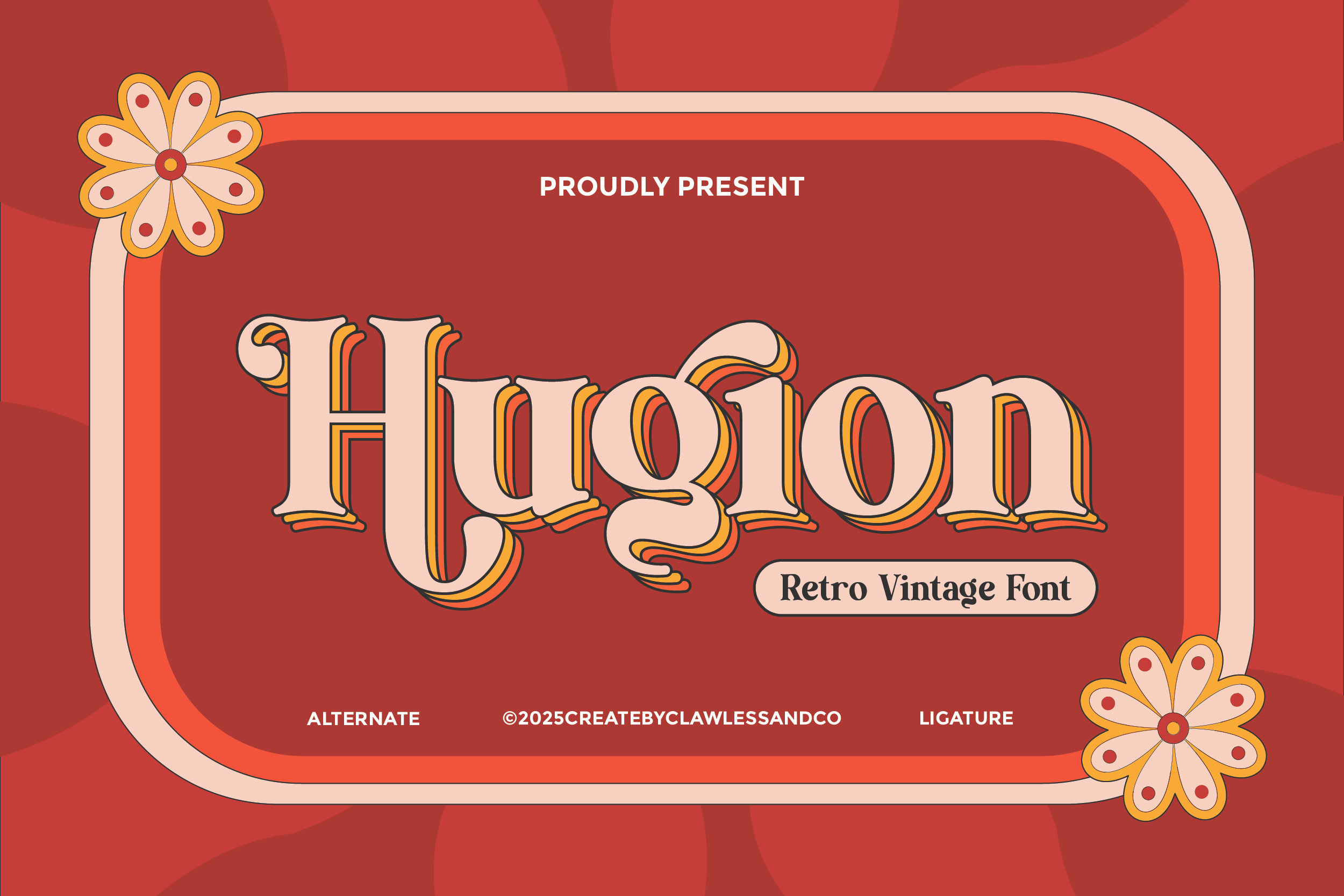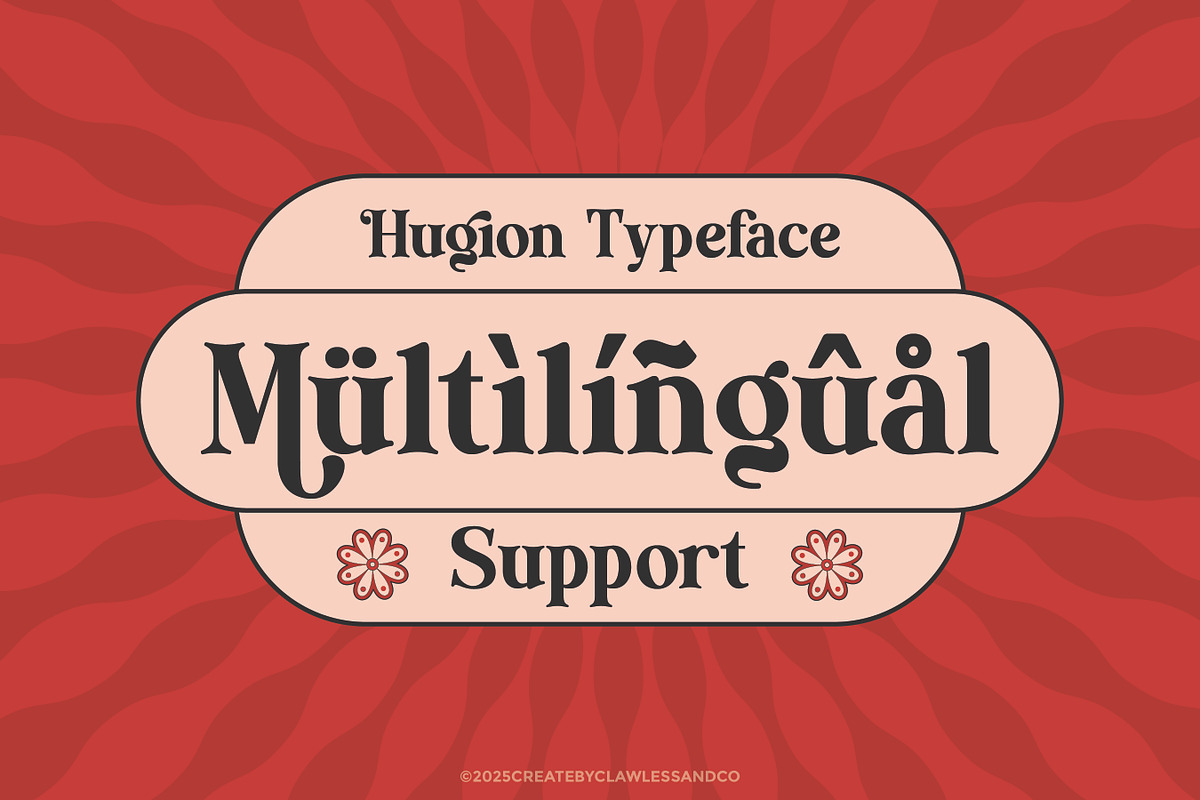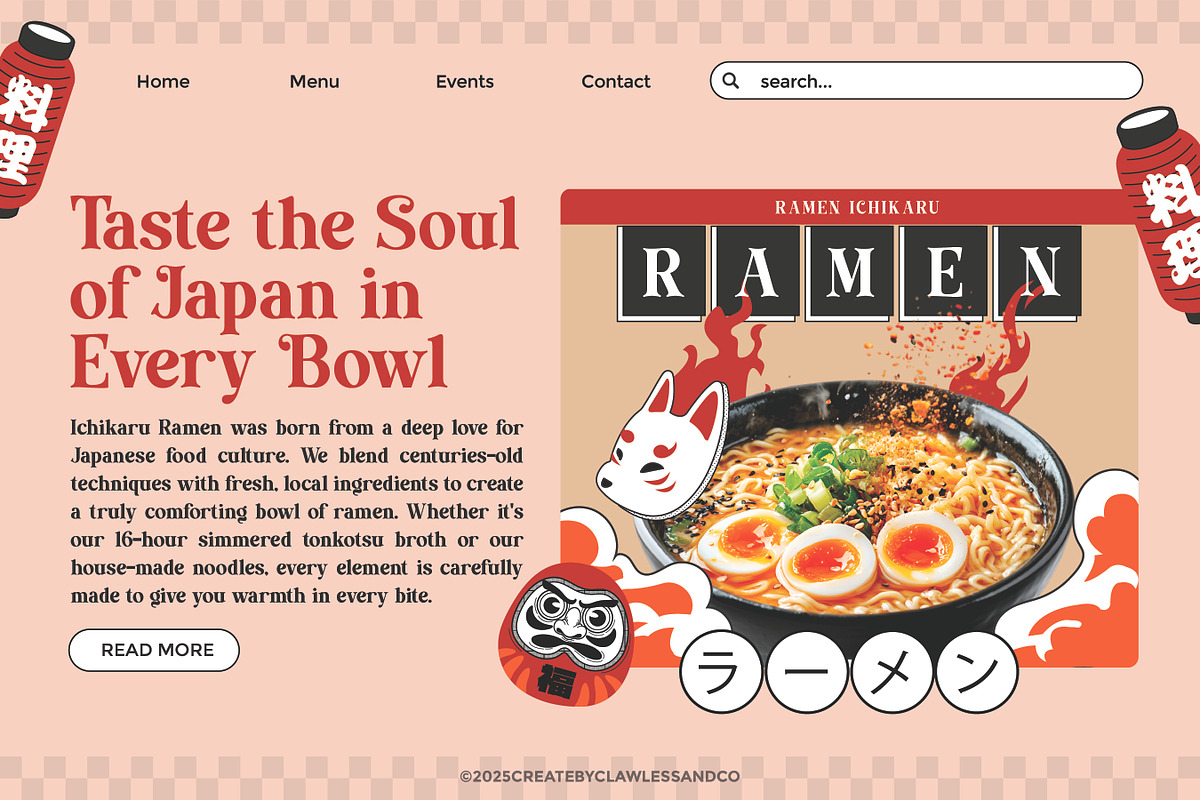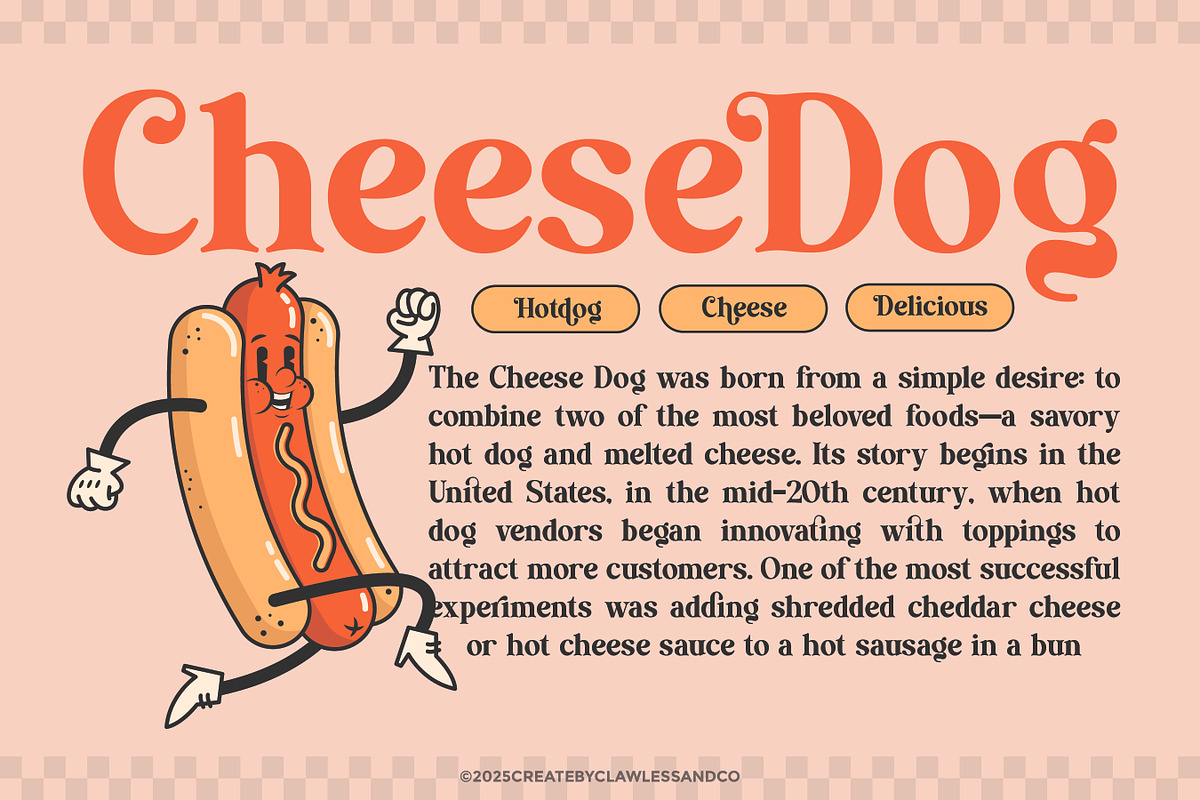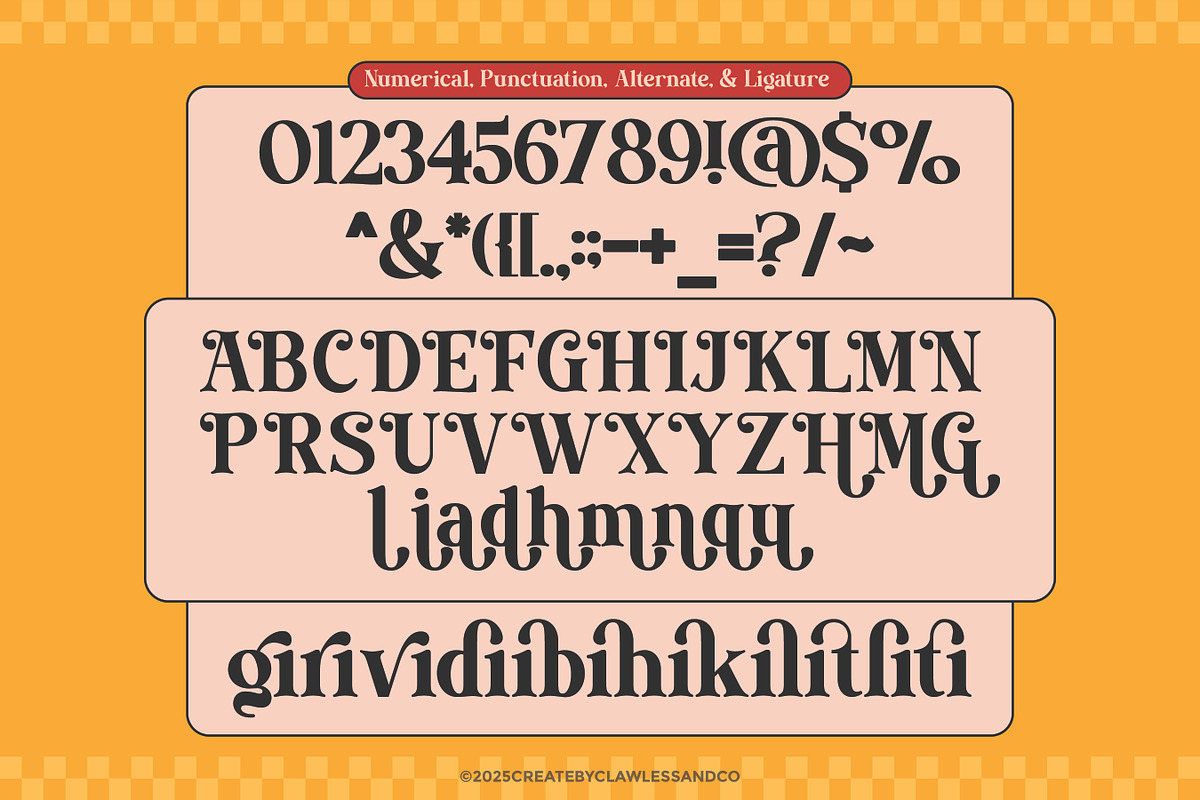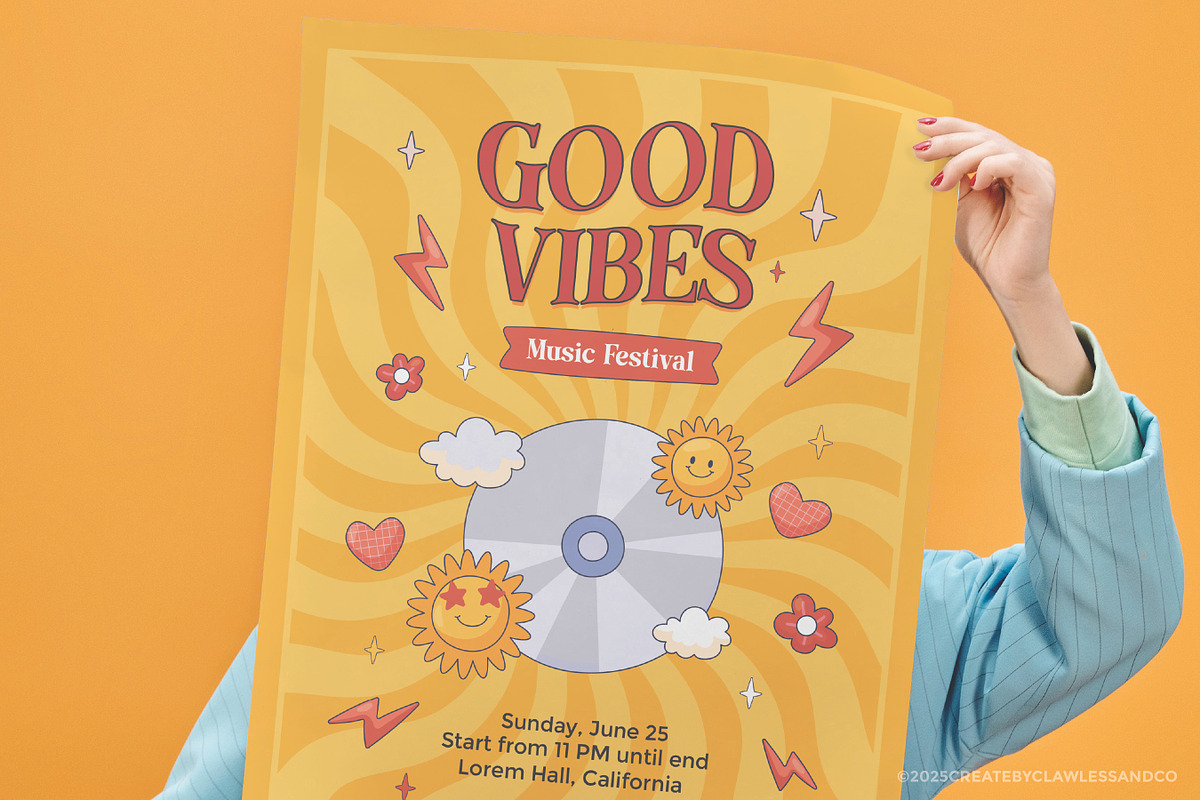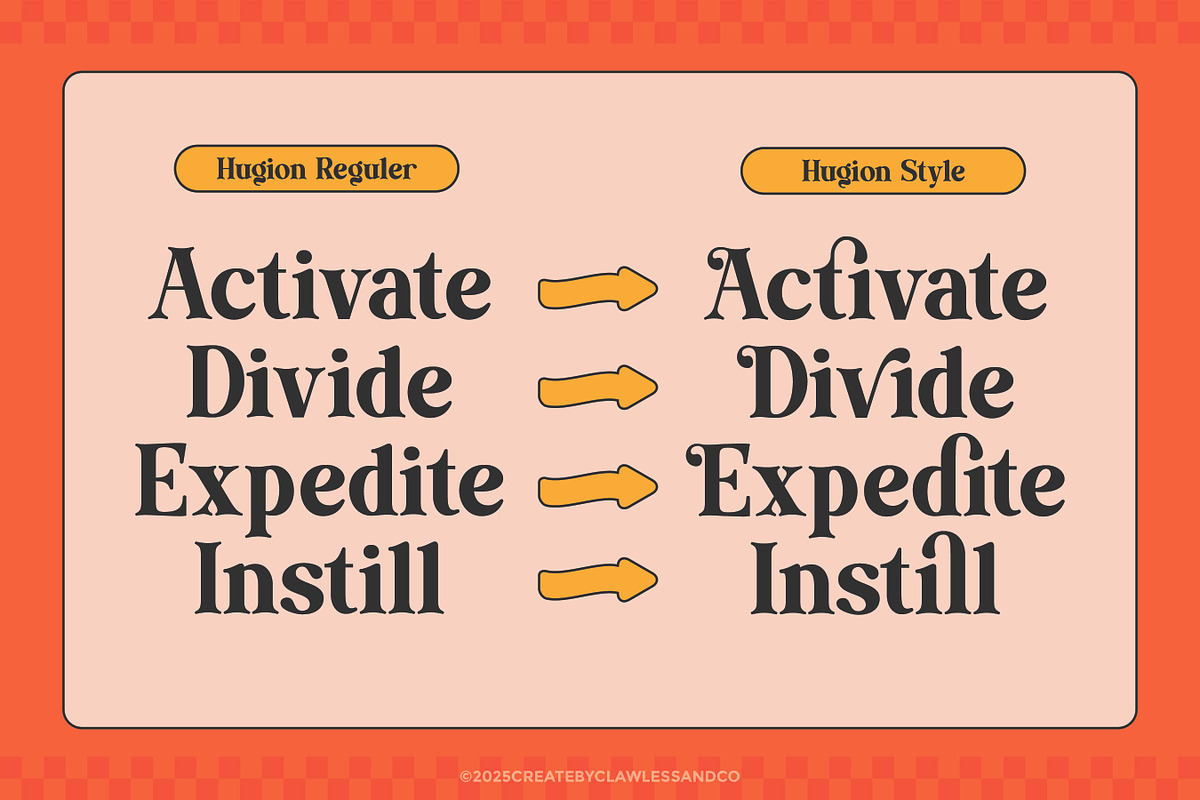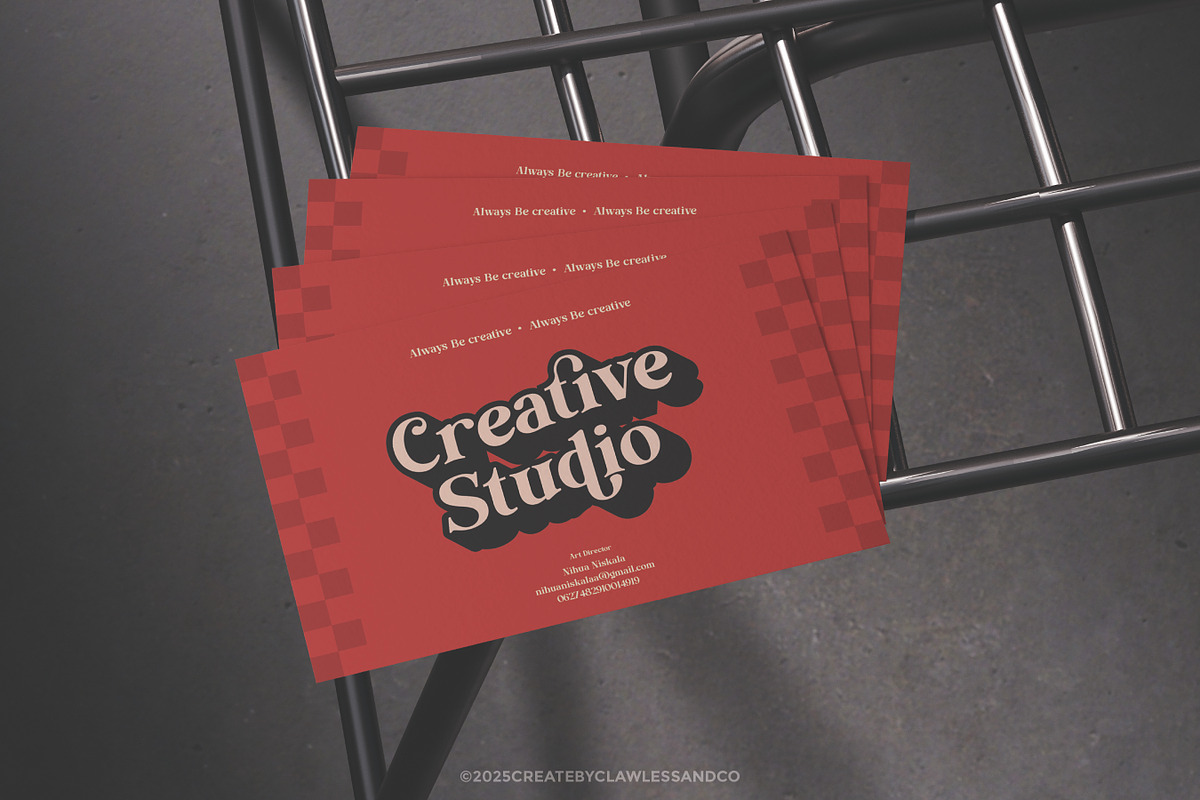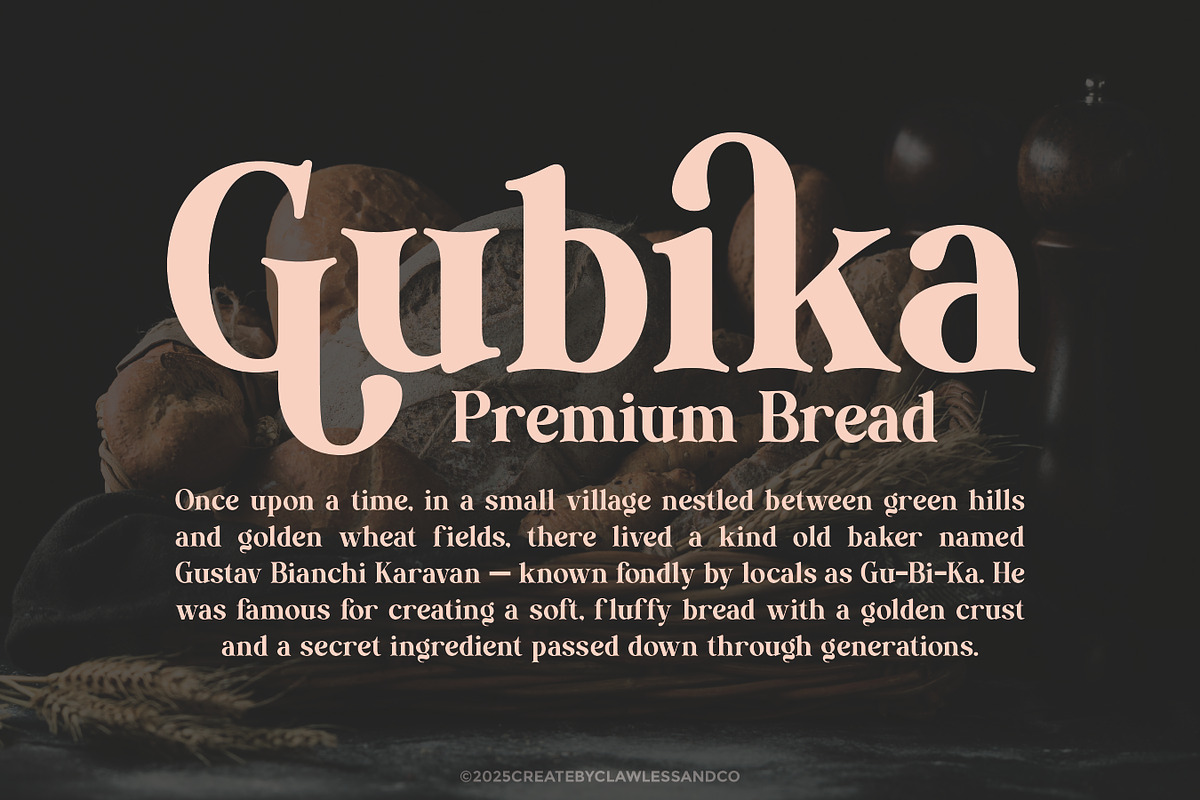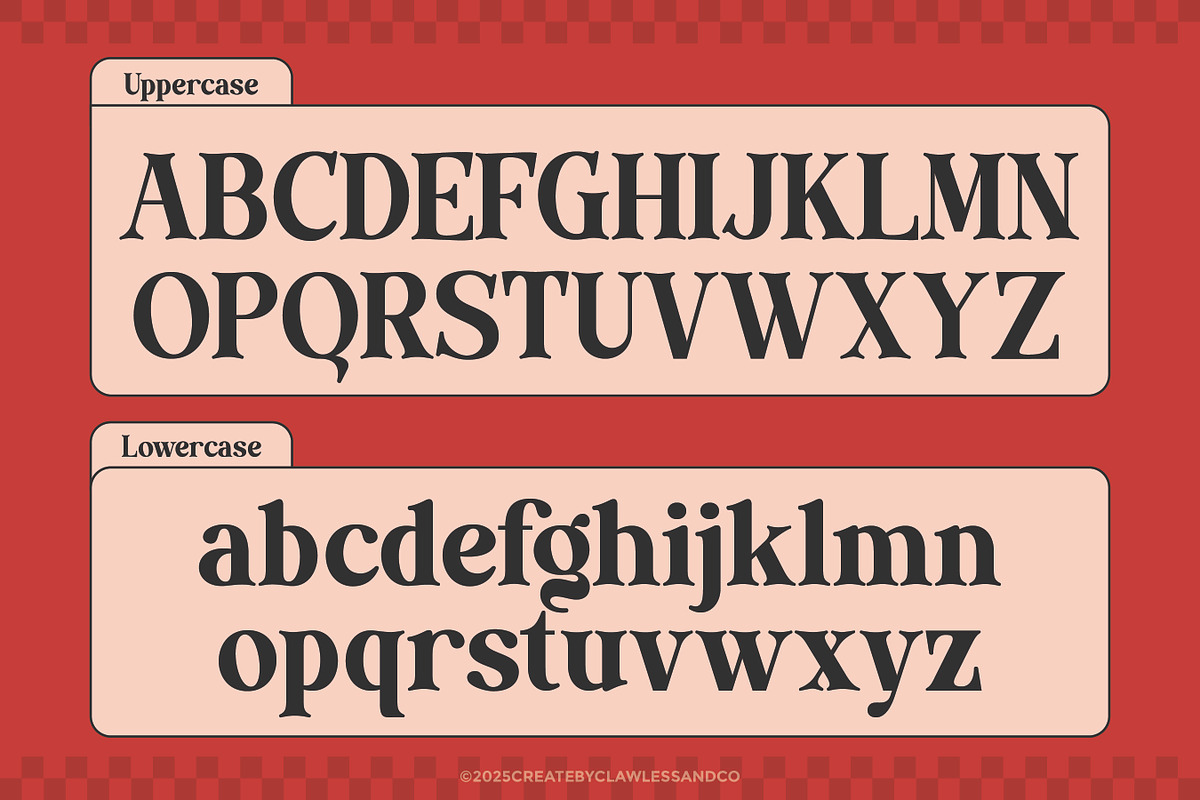
Hugion - Retro Vintage Font
Hugion – Elegant & Unique Display Serif
Hugion is a display serif typeface that blends elegance with distinctive character, making it the perfect choice for designs that require a bold yet refined visual identity. Featuring tall letterforms, sharp serifs, and strong yet graceful curves, Hugion stands out while remaining highly legible.
This font is ideal for:
- Luxury branding and logos
- Fashion magazine headlines
- Elegant event posters
- Premium packaging design
- Stylish website typography
Each letter is crafted with careful attention to visual balance and artistic detail. The high-contrast strokes give every word a commanding presence, making Hugion perfect for designers who want their work to look sophisticated and unique.
Who Should Use Hugion?
Hugion is made for creatives and brands who want to make a bold and stylish statement. You’ll love this font if you are:
- A Brand Designer looking for a high-end typeface to elevate logos and visual identities.
- A Fashion or Beauty Creative in need of a classy font for editorial layouts, lookbooks, or packaging.
- A Content Creator who wants their social media graphics to stand out with a chic and modern aesthetic.
- A Web Designer working on stylish websites, especially for boutique brands or creative portfolios.
Whether you're working on digital or print projects, Hugion brings elegance and personality that sets your work apart.
A Must-Have Font for Brand and Logo Creators and Designers
Hugion is more than just a typeface — it's a statement. With its refined elegance and bold presence, Hugion is the perfect choice for designers looking to craft unforgettable brand identities and timeless logos. Its balance of sophistication and versatility makes it ideal for luxury brands, fashion labels, creative studios, and modern businesses. Whether you're working on a primary logo, wordmark, or branding collateral, Hugion helps your designs exude confidence and style.
Why Choose Hugion for Brand and Logo Projects?
Hugion offers the perfect blend of personality and professionalism. Designed with strong, elegant letterforms and distinctive character, it instantly elevates your brand presence. Hugion is highly versatile — it works beautifully in both minimalist and expressive branding styles. With its clean lines, striking curves, and premium feel, Hugion ensures your logo stands out, communicates clearly, and leaves a lasting impression.
Suitable for:
- Logo & brand identity design Vintage-inspired packaging
- Editorial headlines & magazine layouts
- Fashion, beauty & lifestyle branding
- Posters, signage & promotional graphics
- Creative studio projects
- Retro-themed advertising campaigns
Hugion is ideal for visuals that need a bold, nostalgic character with refined elegance — perfect for capturing attention and telling timeless brand stories.